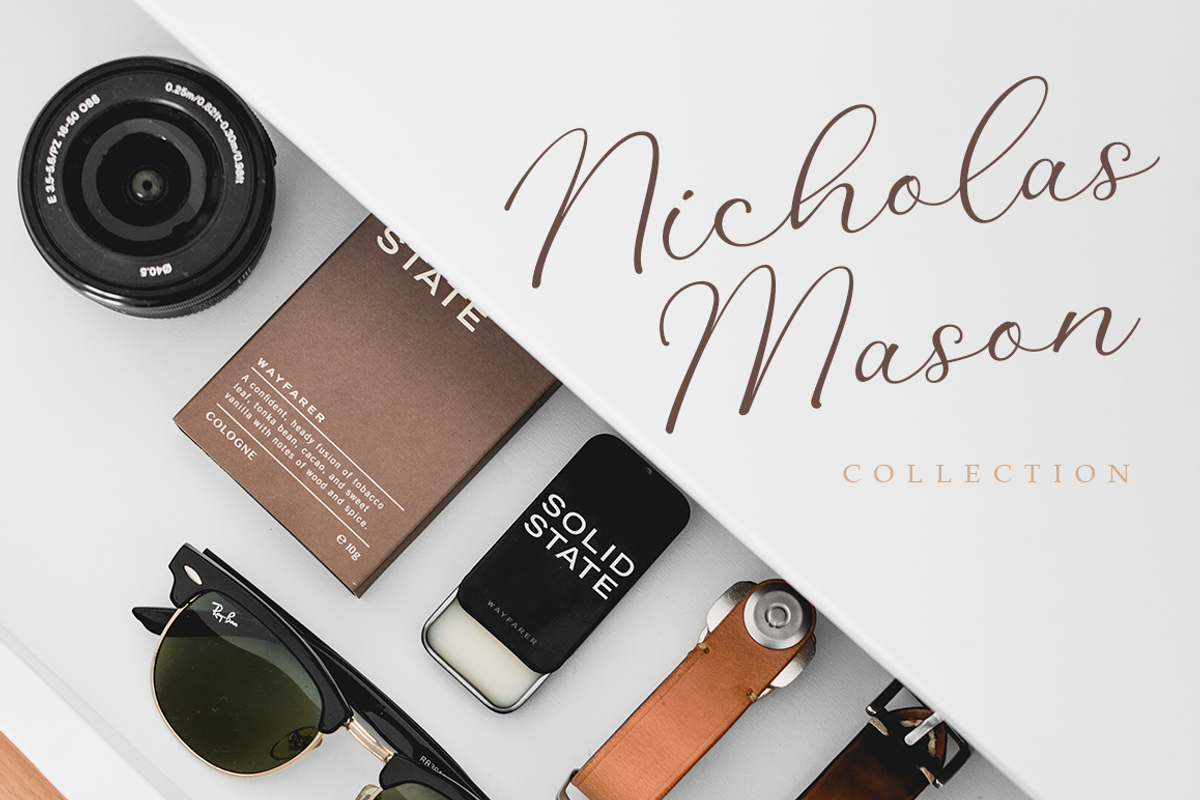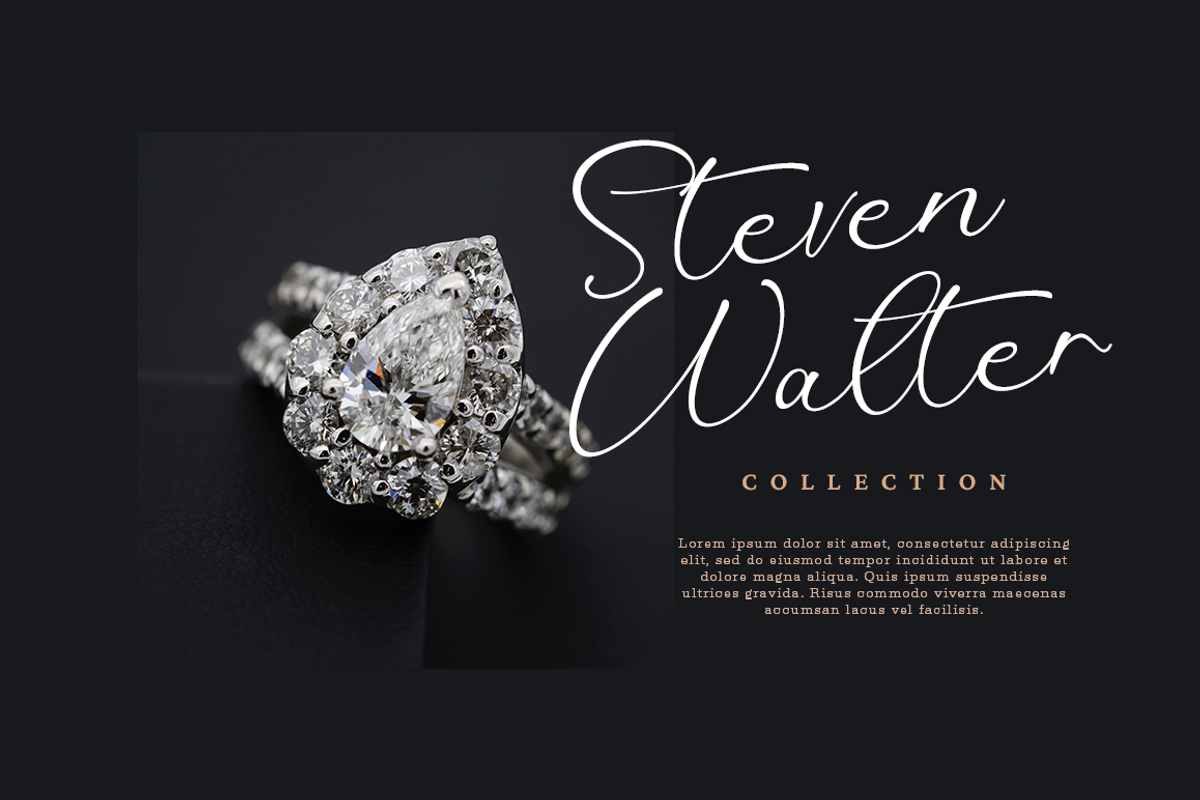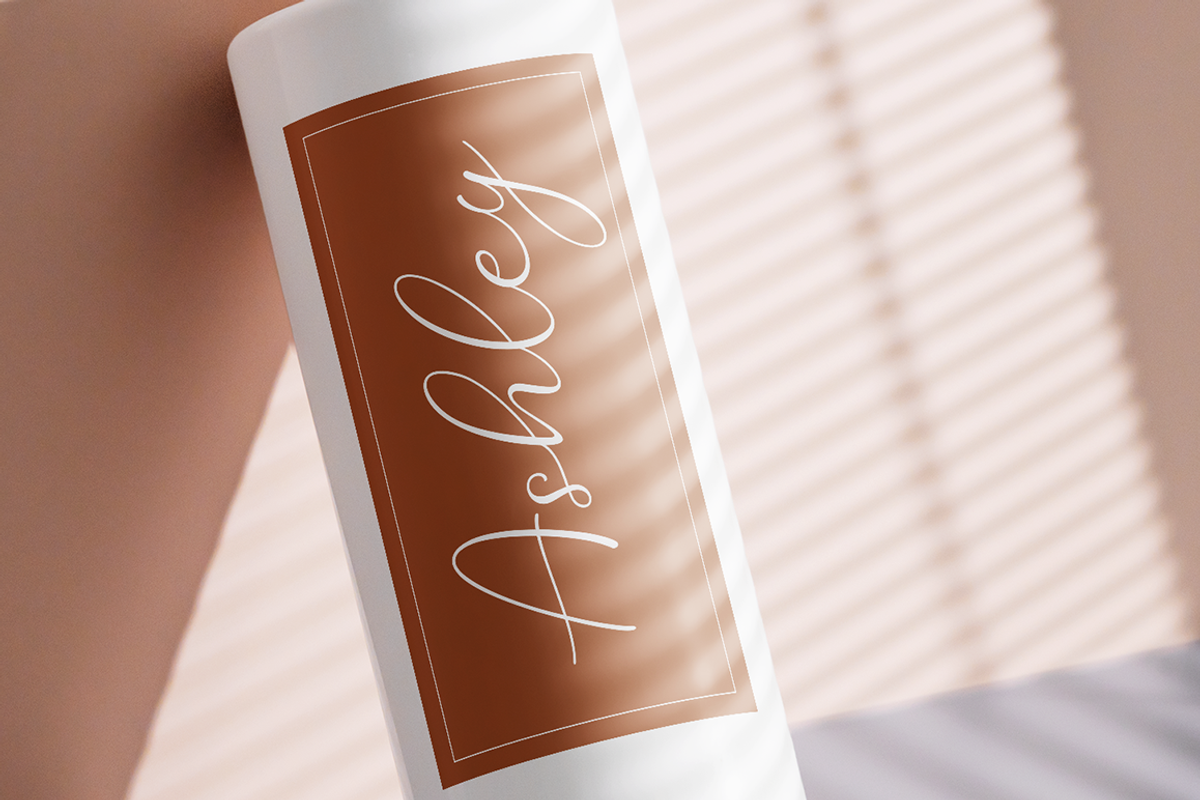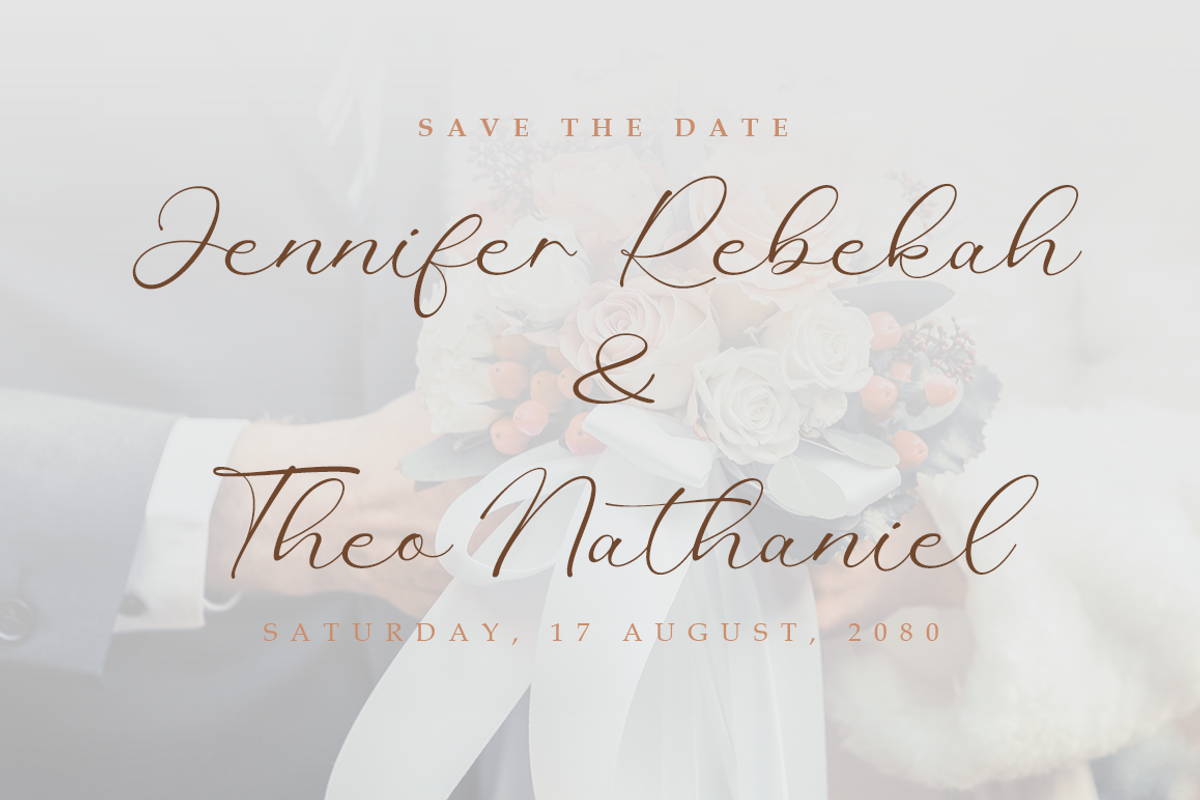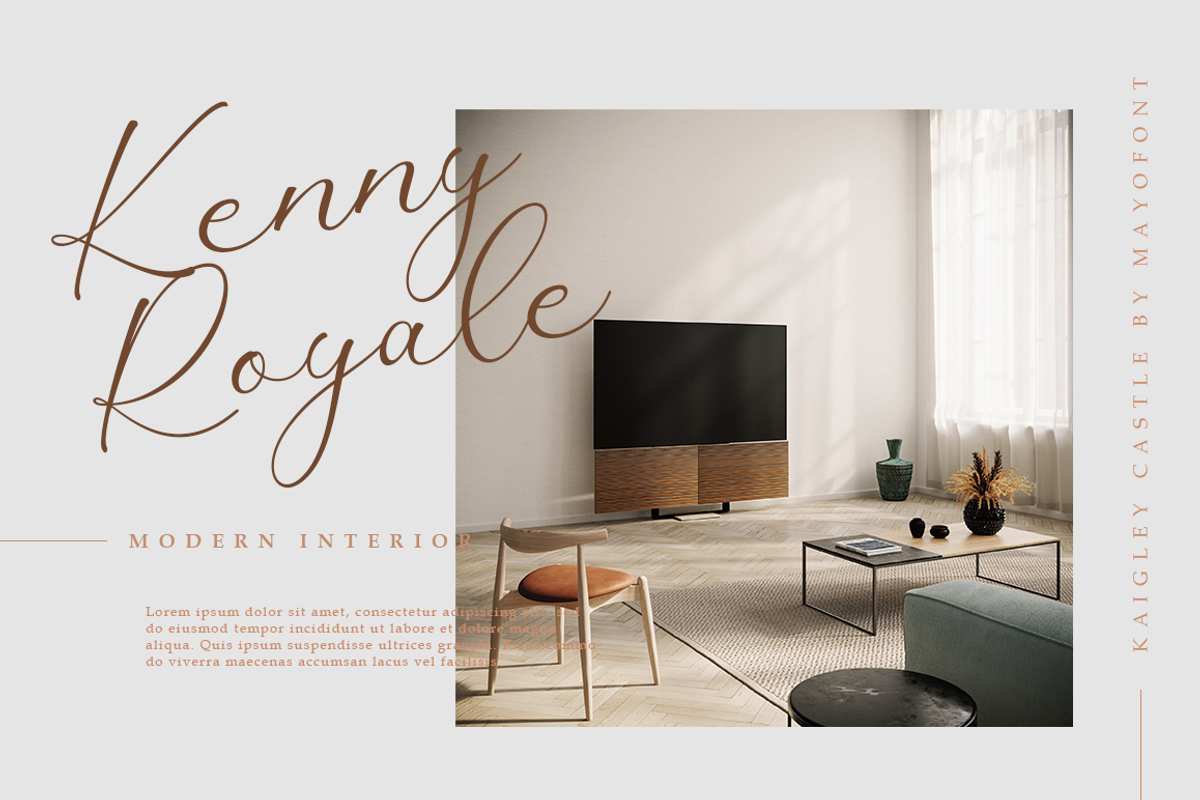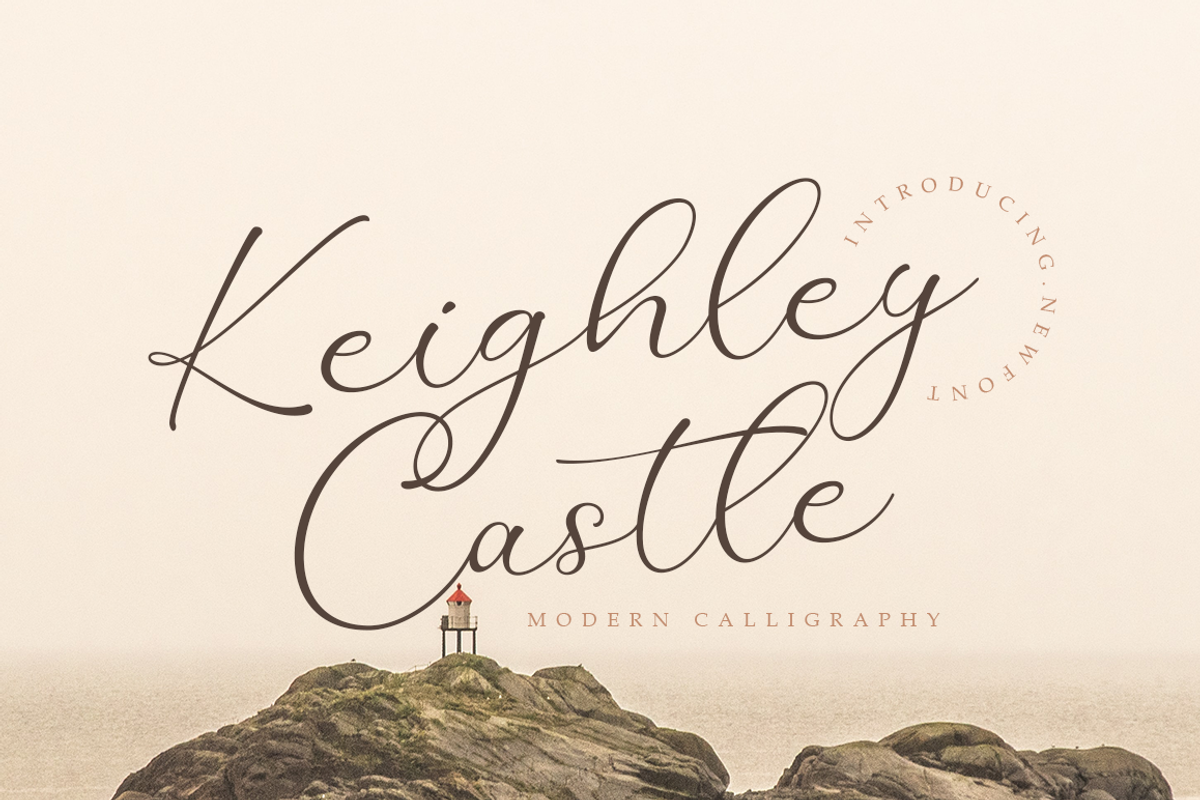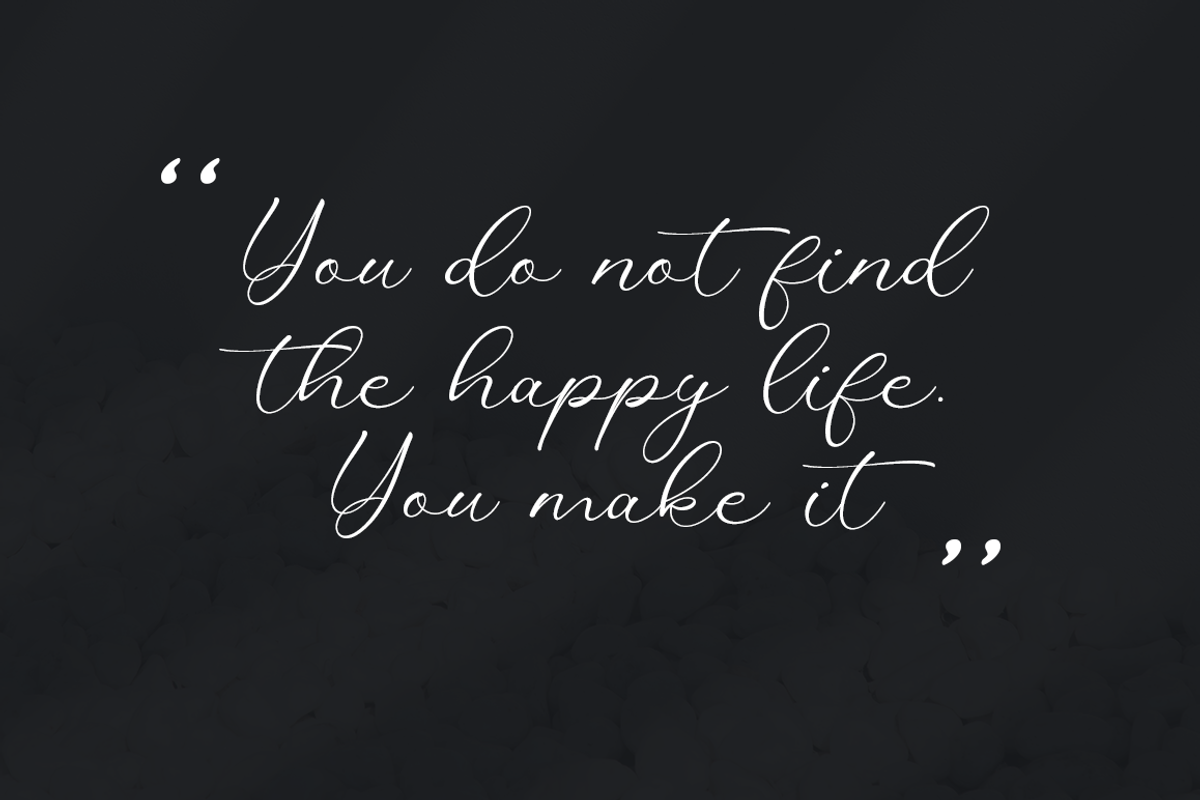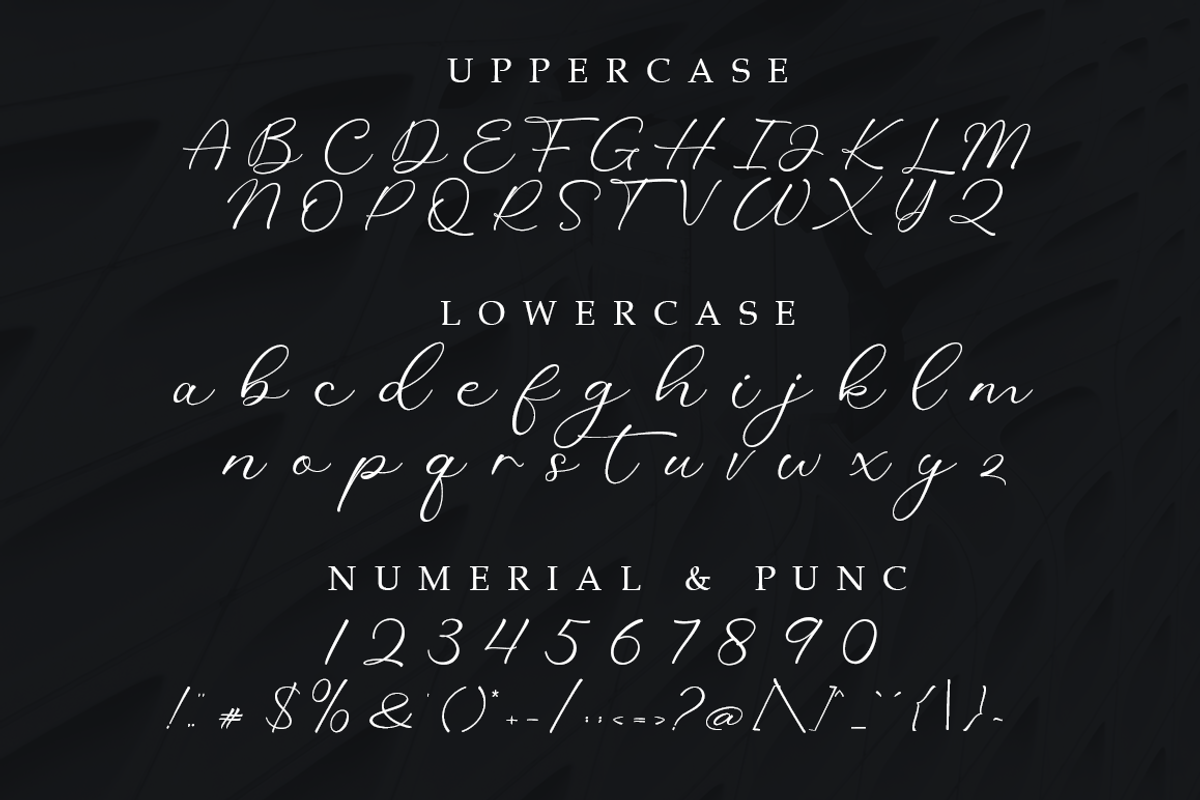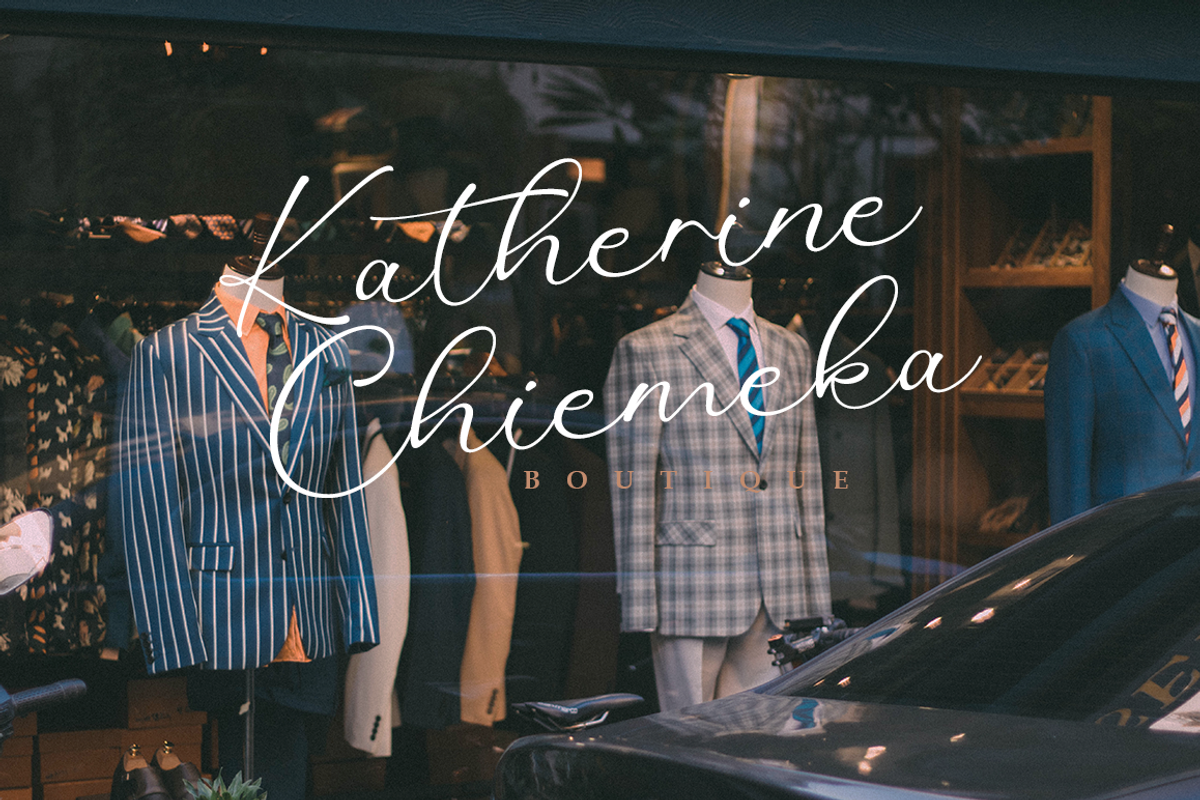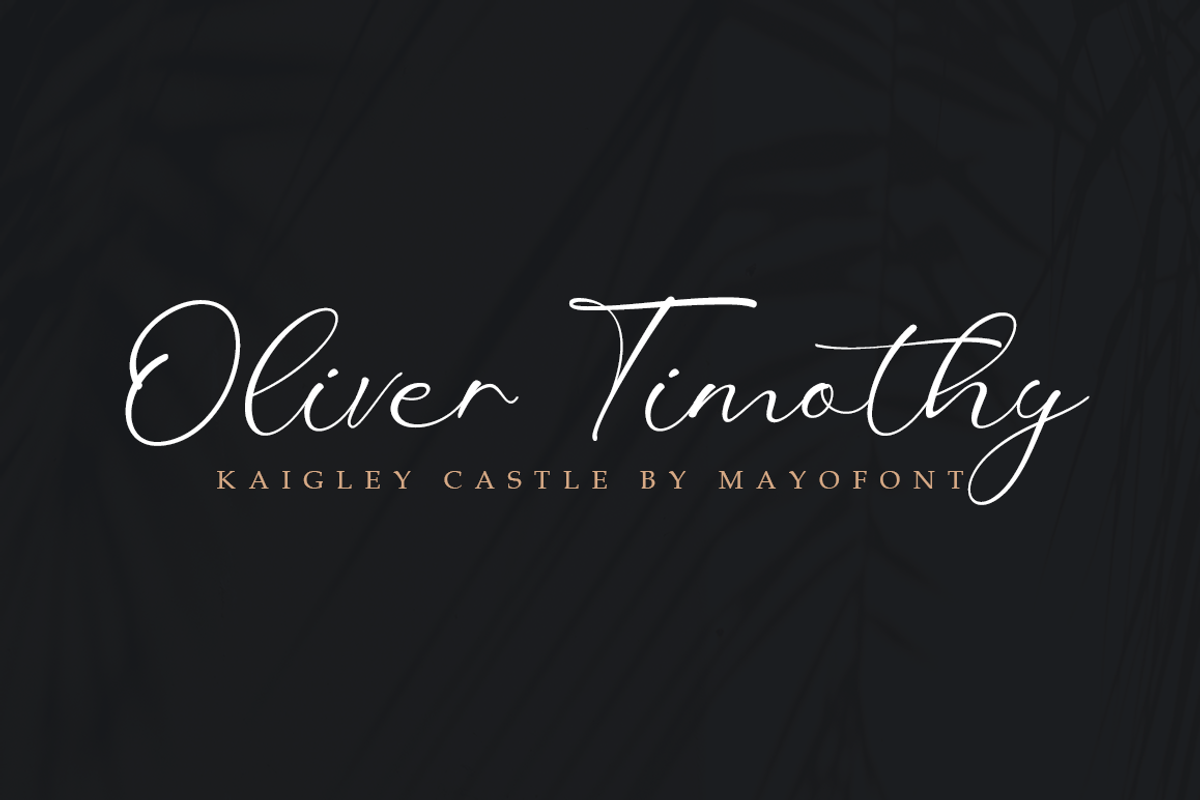
Keighley Castle - Modern Calligraphy
Keighley Castle is a modern line natural handwritten font. This font is perfect for logos, invitations, stationery, wedding designs, label, photography, watermark, special events, or anything that needs a romantic, handwritten touch.